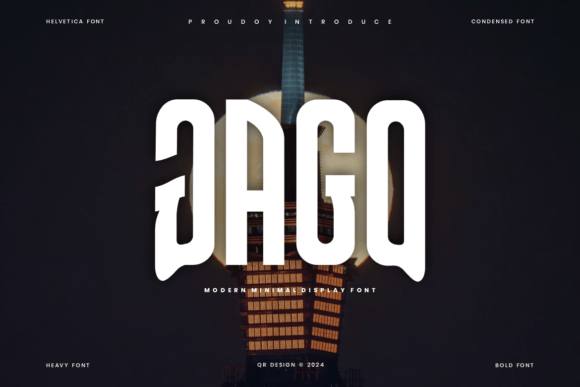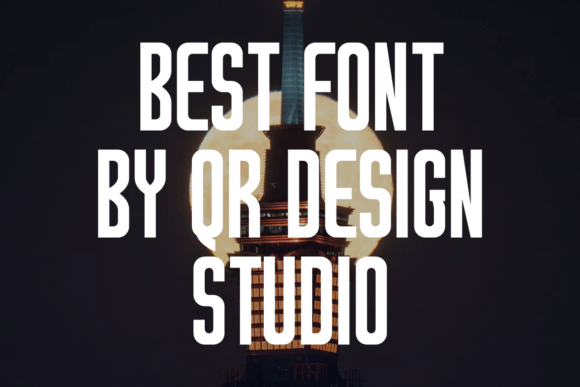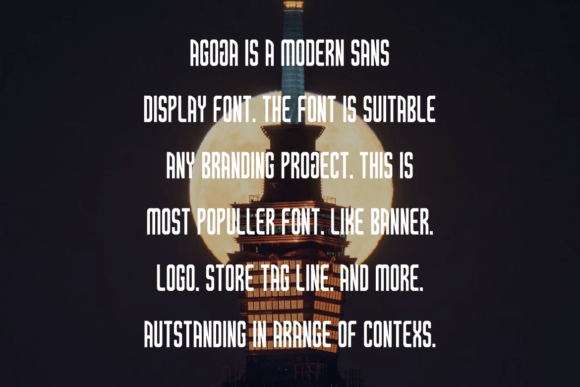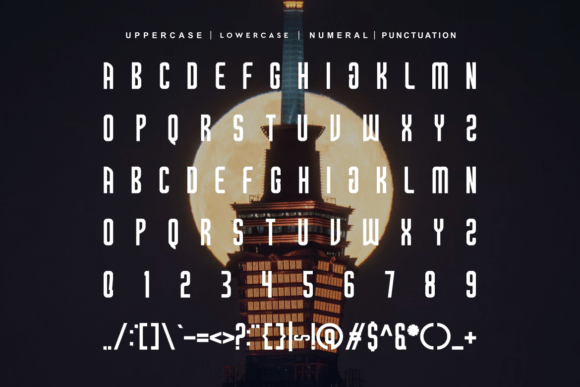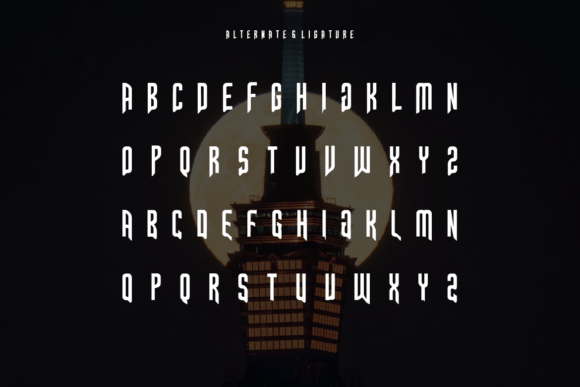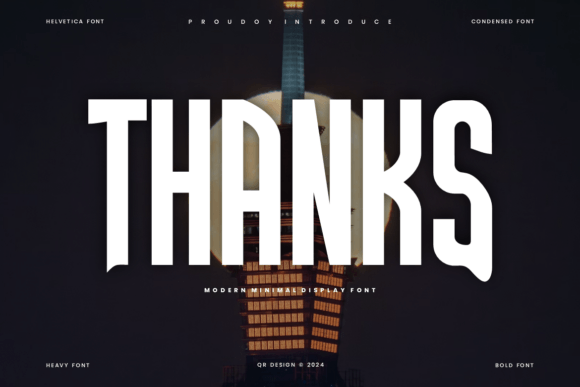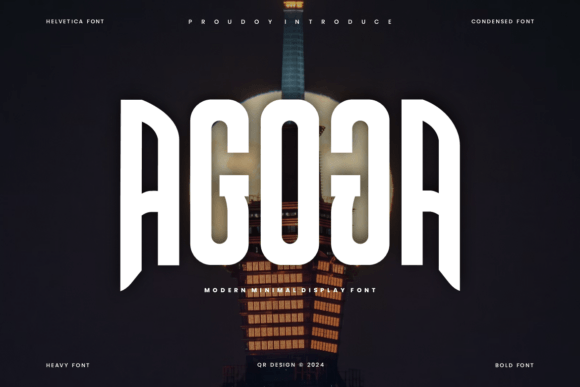
Agoja Font: The Ultimate Sans Serif Font for Creative Projects
Agoja is an incredibly unique sans serif font that has been masterfully designed to become a true favorite among designers and crafters. With its clean and modern aesthetic, this font has the potential to bring each of your creative ideas to the highest level. In this article, we’ll dive into the features and benefits of the Agoja font, and explore how it can elevate your design projects.
What is Agoja Font?
Agoja is a sans serif font that boasts a distinctive and stylish design. Its clean lines, precise curves, and balanced proportions make it an excellent choice for a wide range of creative projects, from branding and advertising to packaging and digital design. The font’s unique character is sure to grab attention and leave a lasting impression on your audience.
Key Features of Agoja Font
• Unique Design: Agoja’s design is unlike any other sans serif font on the market. Its distinctive features make it stand out from the crowd and add a touch of sophistication to your designs.
• Clean and Modern Aesthetic: The font’s clean lines and precise curves give it a modern and sleek look that’s perfect for contemporary designs.
• Highly Versatile: Agoja is an incredibly versatile font that can be used for a wide range of projects, from headings and titles to body text and captions.
• Easily Readable: Despite its unique design, Agoja is highly readable, even at small font sizes.
Benefits of Using Agoja Font
So why choose Agoja font for your creative projects? Here are just a few benefits of using this amazing font:
• Adds a Touch of Sophistication: Agoja’s unique design adds a touch of sophistication and elegance to your designs, making them stand out from the crowd.
• Improves Readability: The font’s clean design and precise curves make it highly readable, even at small font sizes.
• Increases Versatility: Agoja’s versatility makes it an excellent choice for a wide range of projects, from branding and advertising to packaging and digital design.
• Enhances Creativity: With Agoja, you can bring your creative ideas to life and take them to the next level.
How to Use Agoja Font in Your Designs
Using Agoja font in your designs is easy. Here are a few tips to get you started:
• Pair it with Other Fonts: Agoja pairs well with other fonts, making it easy to create stunning font combinations.
• Experiment with Font Sizes: The font’s readability makes it suitable for use at a wide range of font sizes.
• Use it for Headings and Titles: Agoja’s unique design makes it perfect for use in headings and titles.
• Add a Pop of Color: Use Agoja in a bold color to add a pop of color to your designs.
In conclusion, Agoja font is an incredibly unique and versatile sans serif font that’s perfect for designers and crafters looking to add a touch of sophistication to their creative projects. With its clean and modern aesthetic, precise curves, and balanced proportions, Agoja is sure to become a true favorite among designers. Whether you’re working on a branding project, creating a digital design, or crafting a beautiful piece of art, Agoja font is the perfect choice.